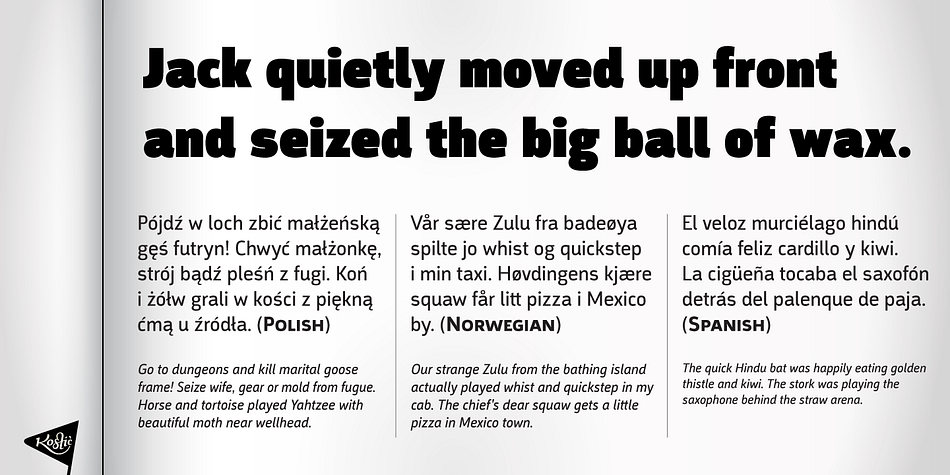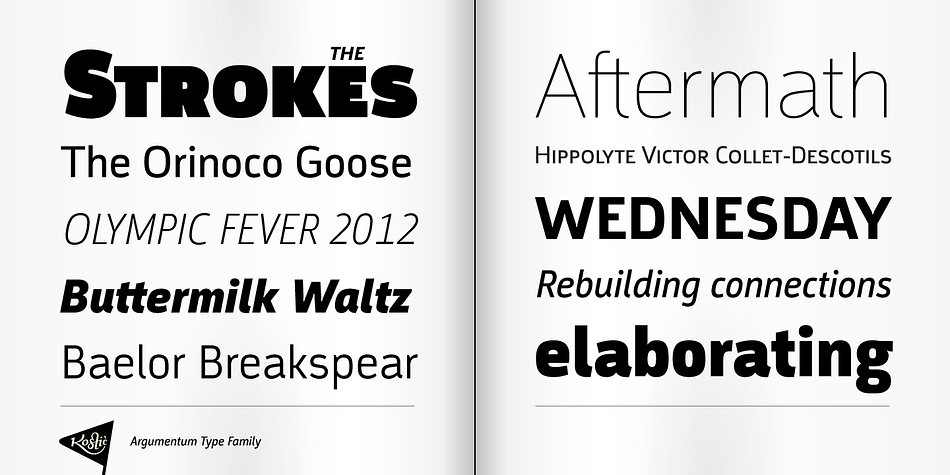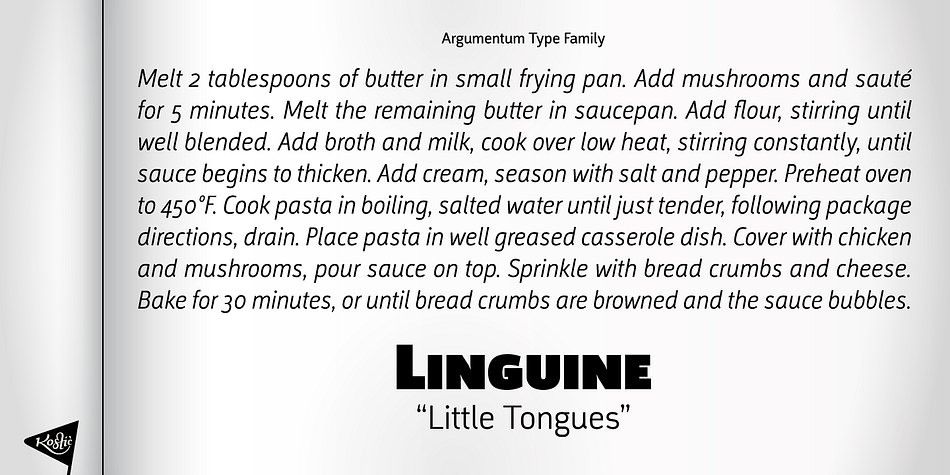
Argumentum
Argumentum is a sans serif font family. This typeface has sixteen styles and was published by Kostic Type Foundry.
The intention was to make a technical looking sans with a warmer feel to it, balanced between hard geometric shapes and friendly curves with slightly narrower endings.
It should be useful in a wide range of tasks, whether combining the six weights with distinct Italics for editorial design, setting multiple pages of text, making financial reports, or using the highly contrasted lights and blacks for display and packaging design.
Argumentum has a character set to support Western and Central European languages, and an extended set for monetary symbols.
Each weight includes small caps, ligatures, proportional lining and oldstyle numbers, tabular figures, fractions and scientific superior/inferior figures.
Argumentum is a sixteen font, sans serif family by Kostic Type Foundry.
The intention was to make a technical looking sans with a warmer feel to it, balanced between hard geometric shapes and friendly curves with slightly narrower endings. It should be useful in a wide range of tasks, whether combining the six weights with distinct Italics for editorial design, setting multiple pages of text, making financial reports, or using the highly contrasted lights and blacks for display and packaging design.
Argumentum has a character set to support Western and Central European languages, and an extended set for monetary symbols. Each weight includes small caps, ligatures, proportional lining and oldstyle numbers, tabular figures, fractions and scientific superior/inferior figures.